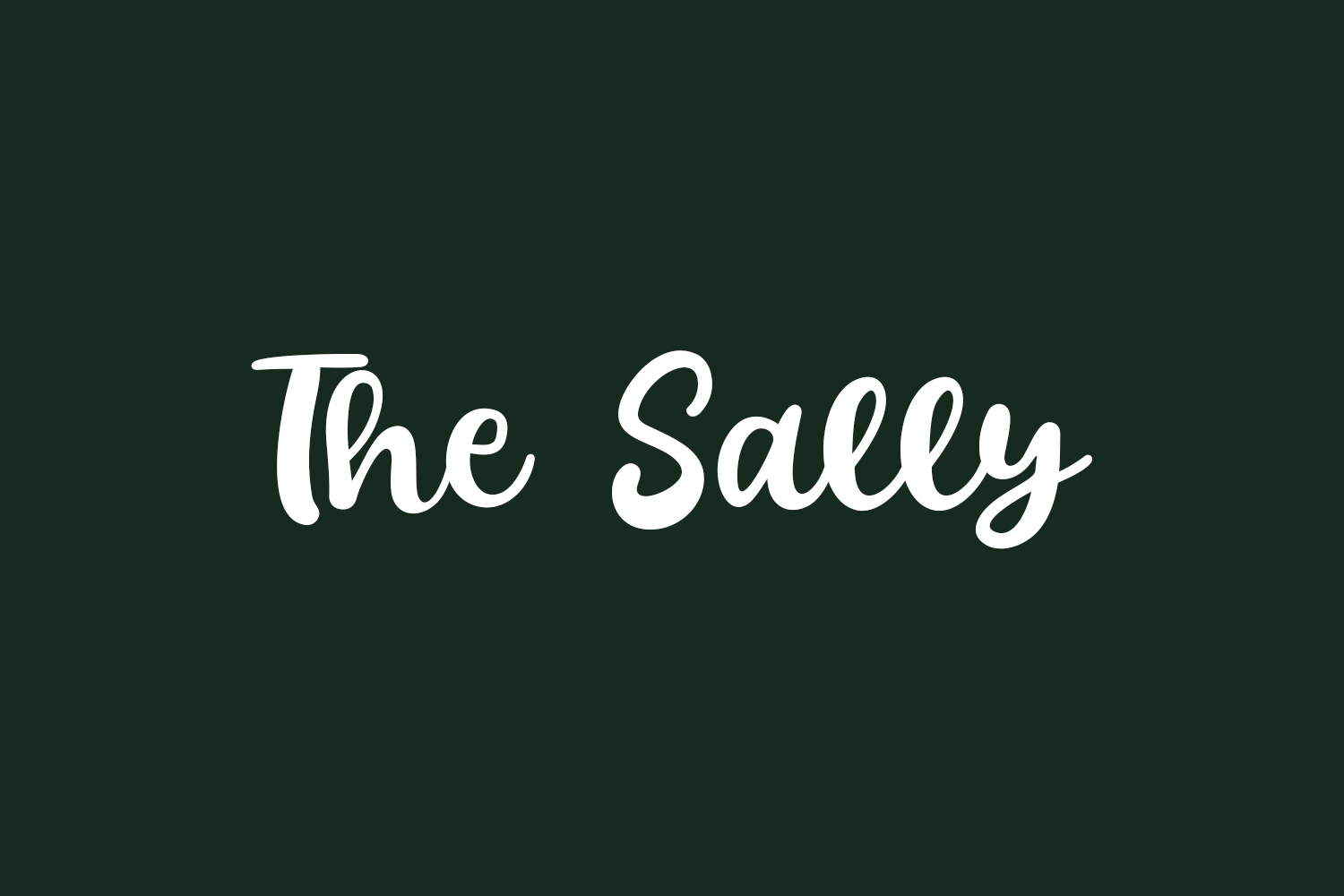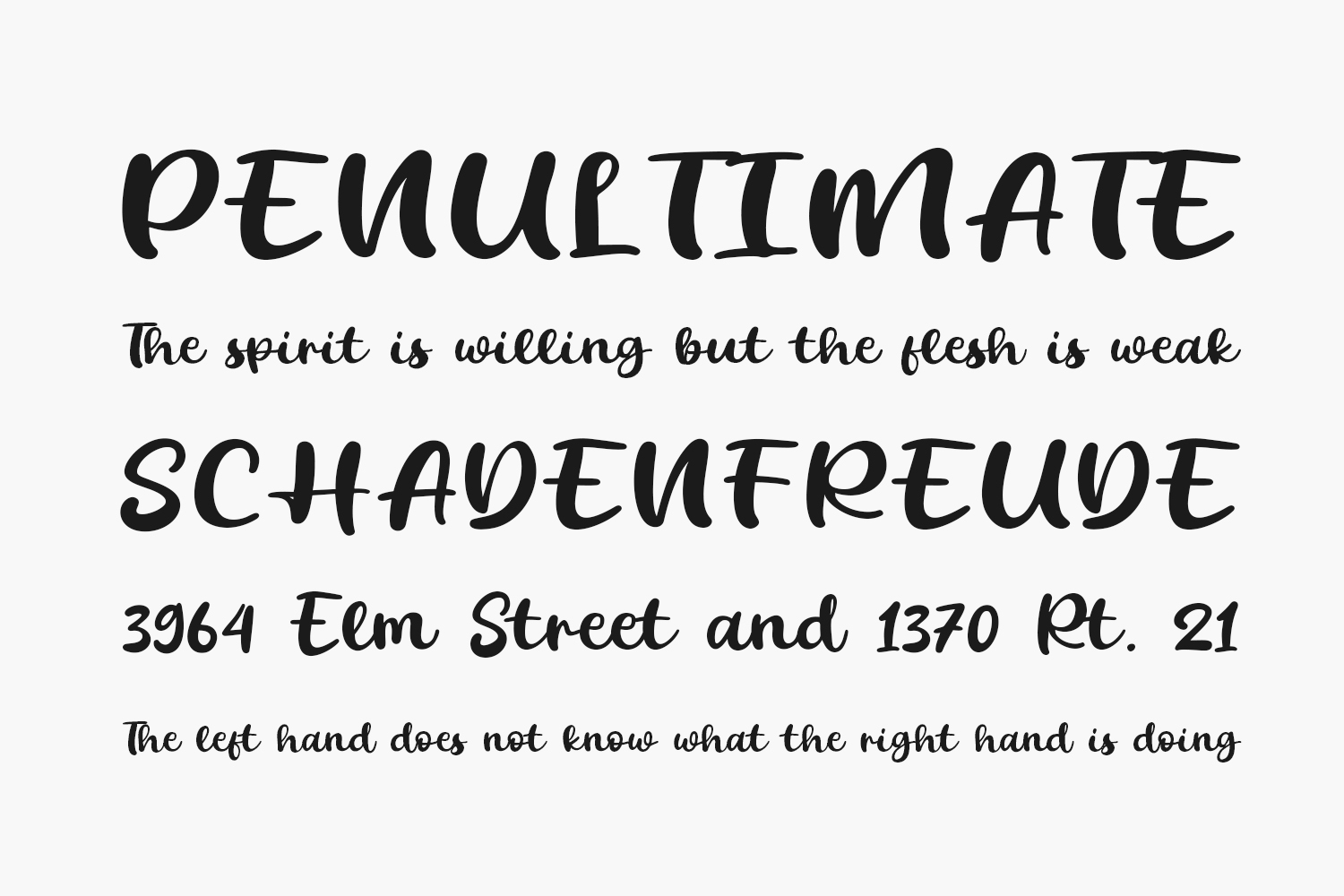
Discover the contemporary charm of The Sally Free Font, a dynamic script font ideal for enhancing posters, logos, magazines, book covers, banners, and beyond! Elevate your designs with this exceptional font, effortlessly adaptable to a wide range of projects. Incorporate it into your creative endeavors and witness the remarkable impact it lends to your ideas, making them truly distinctive. The Sally Free Font was designed by Khurasan and is free for personal or commercial use.